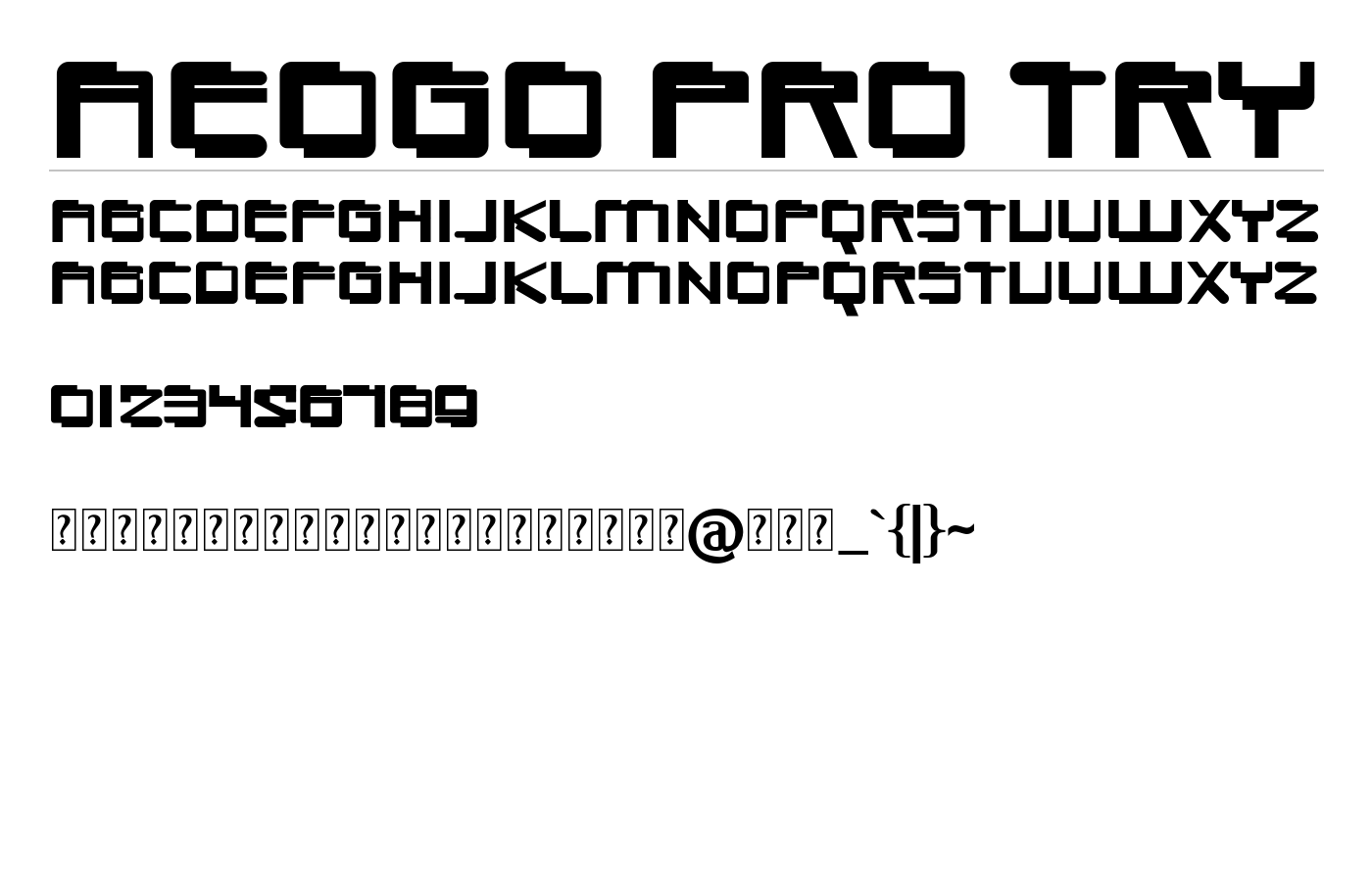
Aeogo Pro Try is a bold, geometric sans serif font with a futuristic, tech-inspired aesthetic. Its strong, squared shapes and uniform stroke weight give it a solid, modern feel, making it ideal for digital projects, logos, and headlines that require a striking, innovative look. This font works especially well in branding and design contexts where a clean, cutting-edge style is desired.
Aeogo Pro Try Font